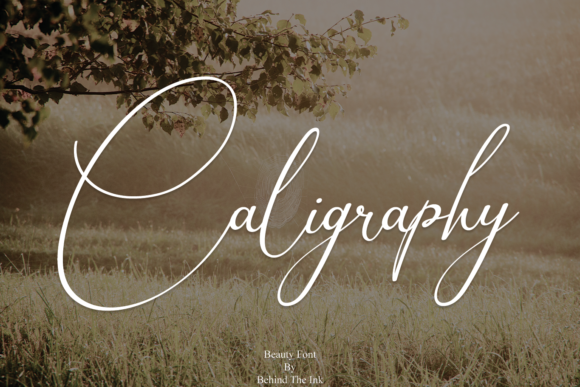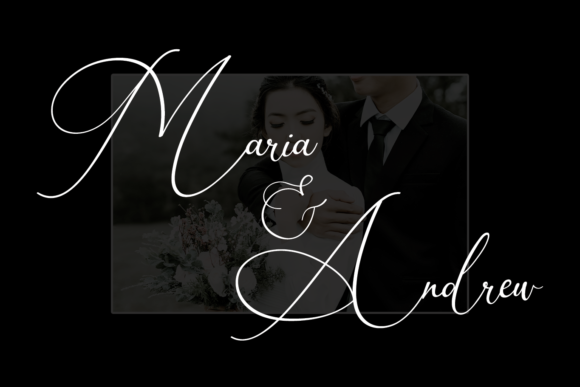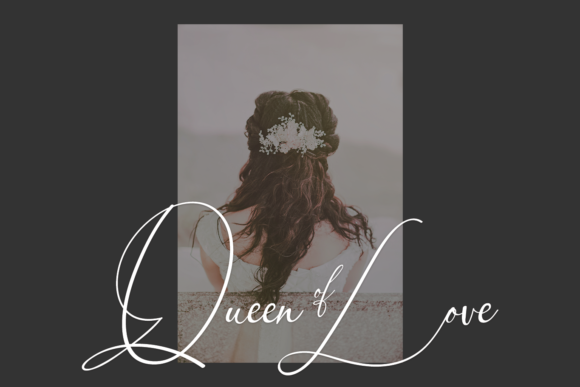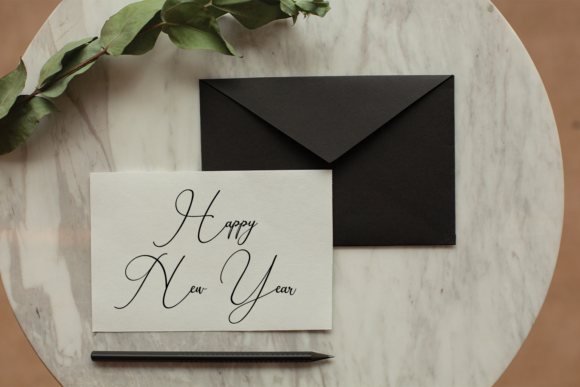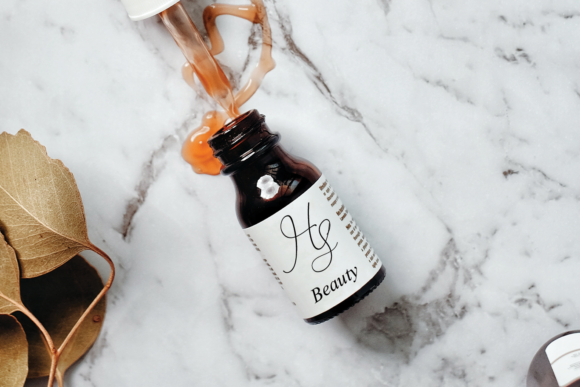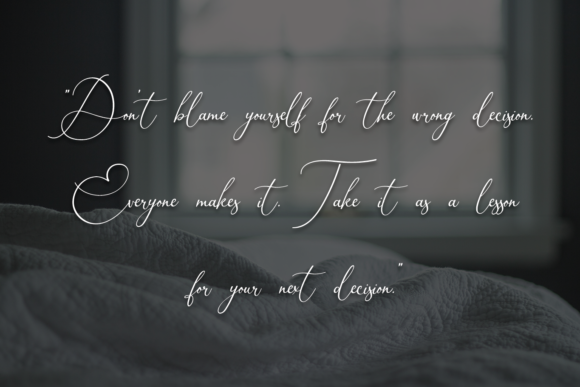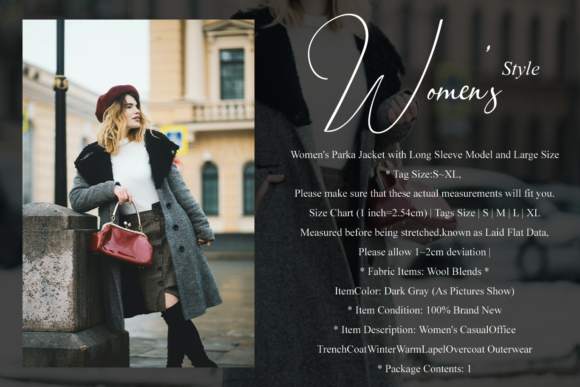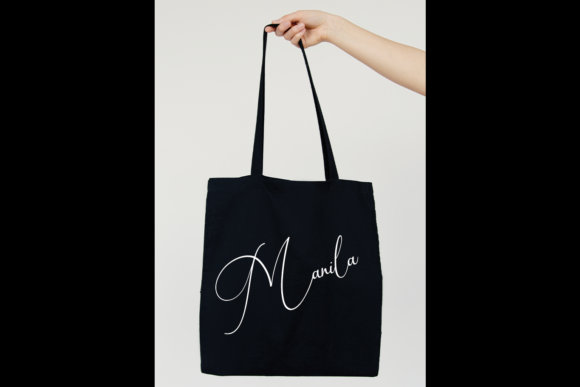
Caligraphy Font
About Caligraphy Font
Caligraphy is a romantic and sweet calligraphy script font featuring characters that seem to dance along the baseline. It will add a luxurious spark to any creative design or project you wish to develop!